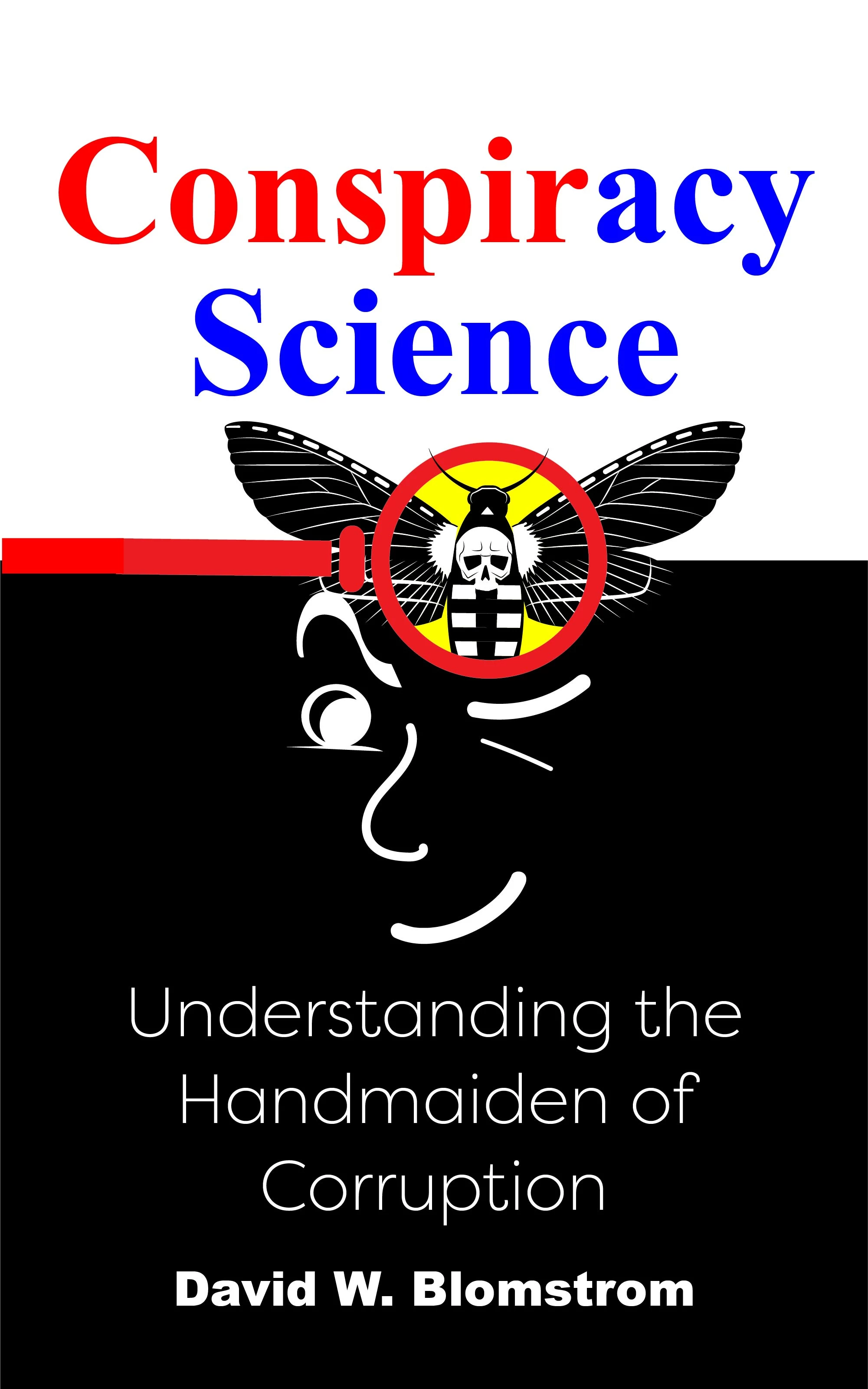
Recommended font for book cover
My book cover designs always get a thumbs down, but I decided to give it another try. I'm not sure if this is really a good design, but it looks OK to my eye. The big question mark (for me) is the fonts. I don't have a good eye for choosing the best fonts for conveying ideas or emotions.
In this design, I chose the familiar Times New Roman for the title. Can anyone recommend a better font, or suggest a strategy for making the title look more exciting? Or do you think it's OK as it is?
Since it's a scientific work, I chose a serif font to make the title look more traditional and authoritative. On the other hand, conspiracy is popularly associated with the weird, mysteries and true crime stories. So I thought of using a font that gives the cover a more mysterious, provocative feeling.